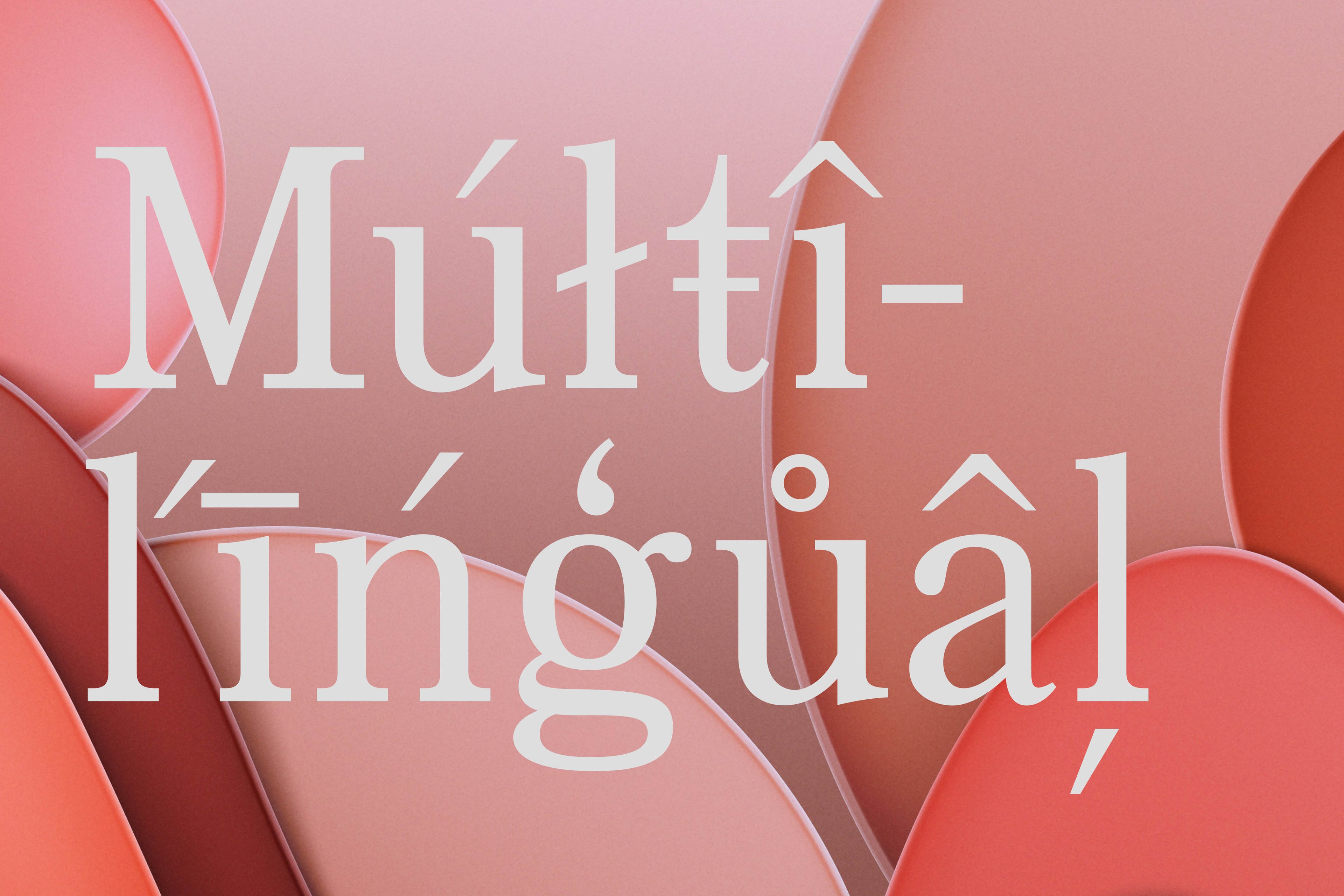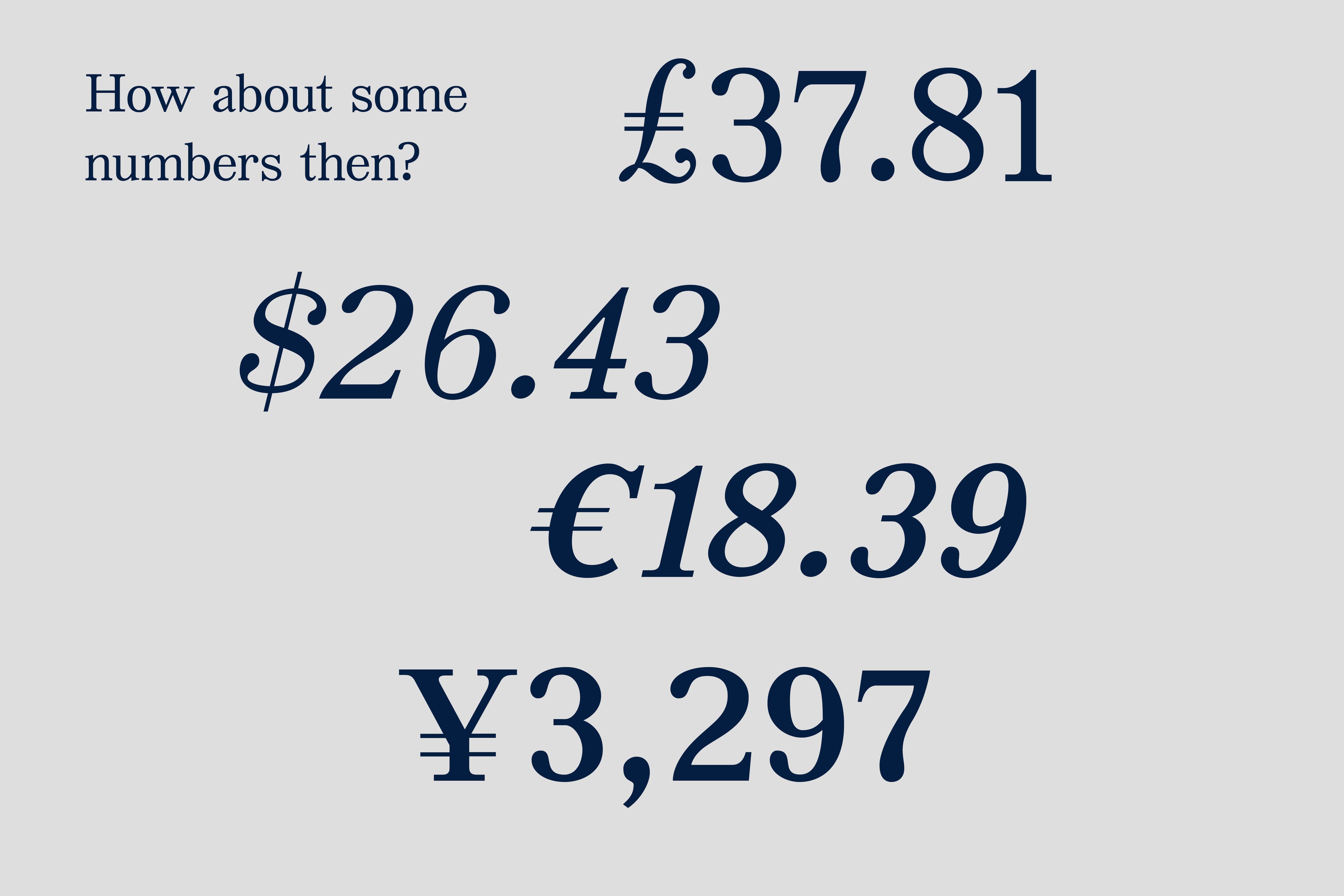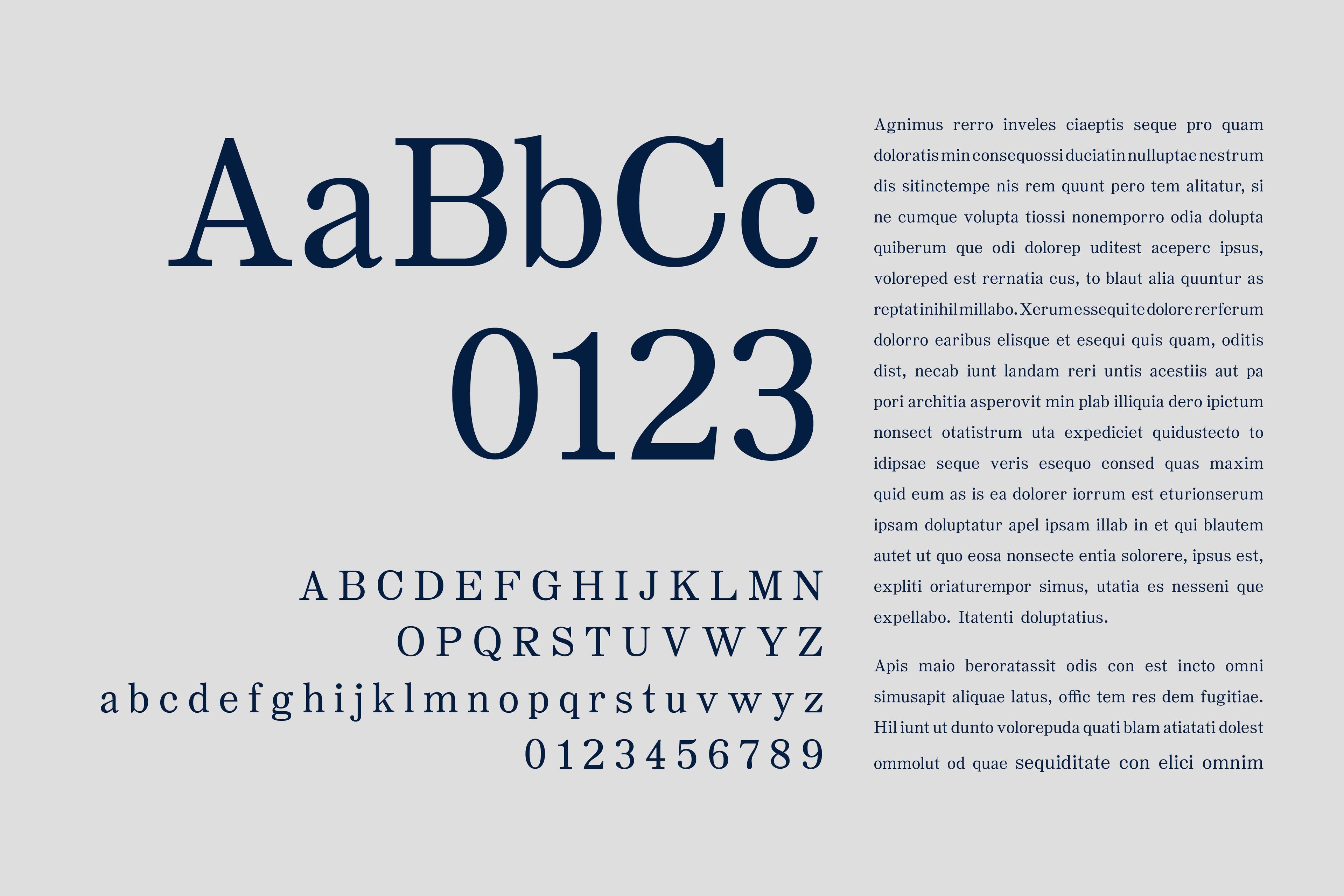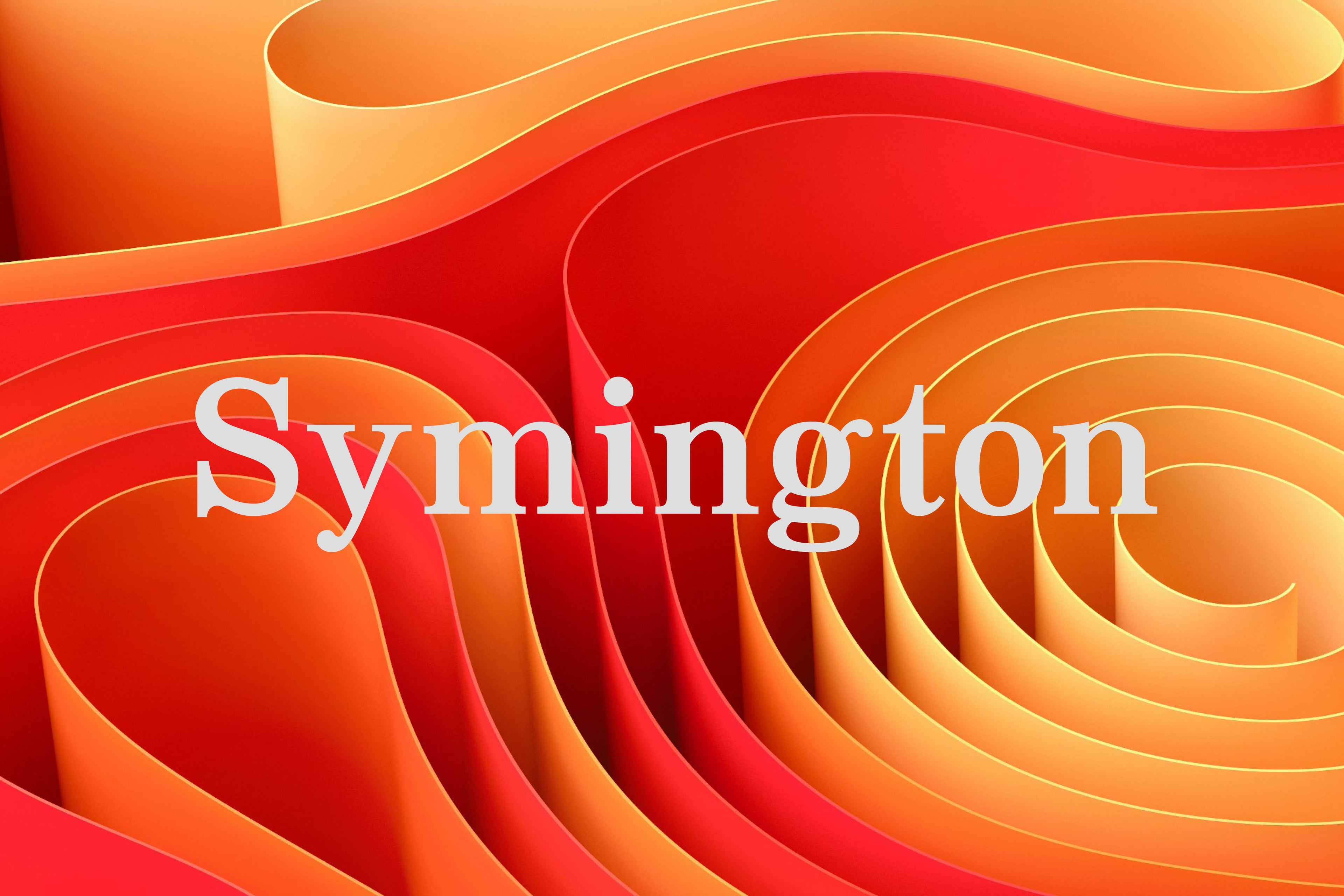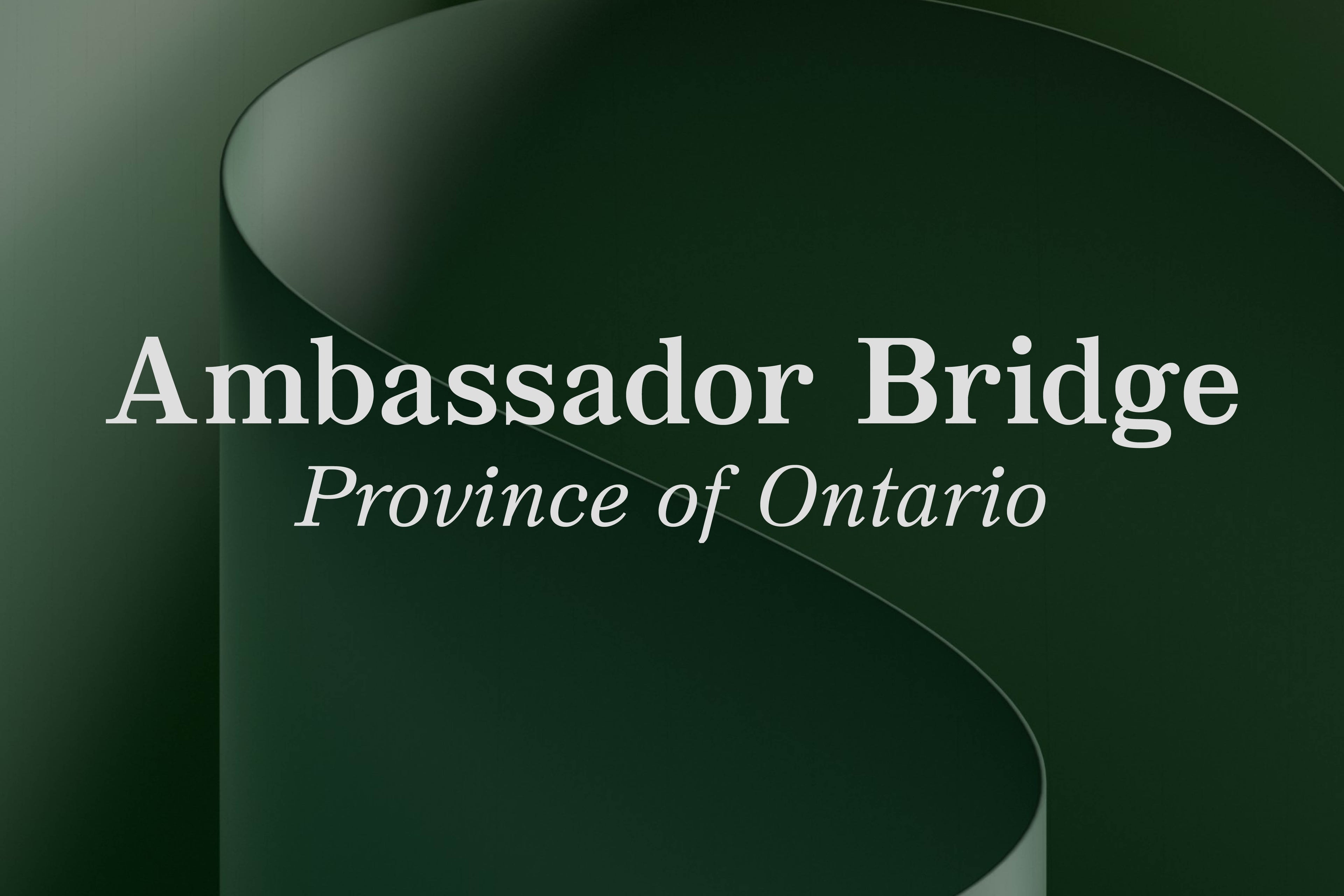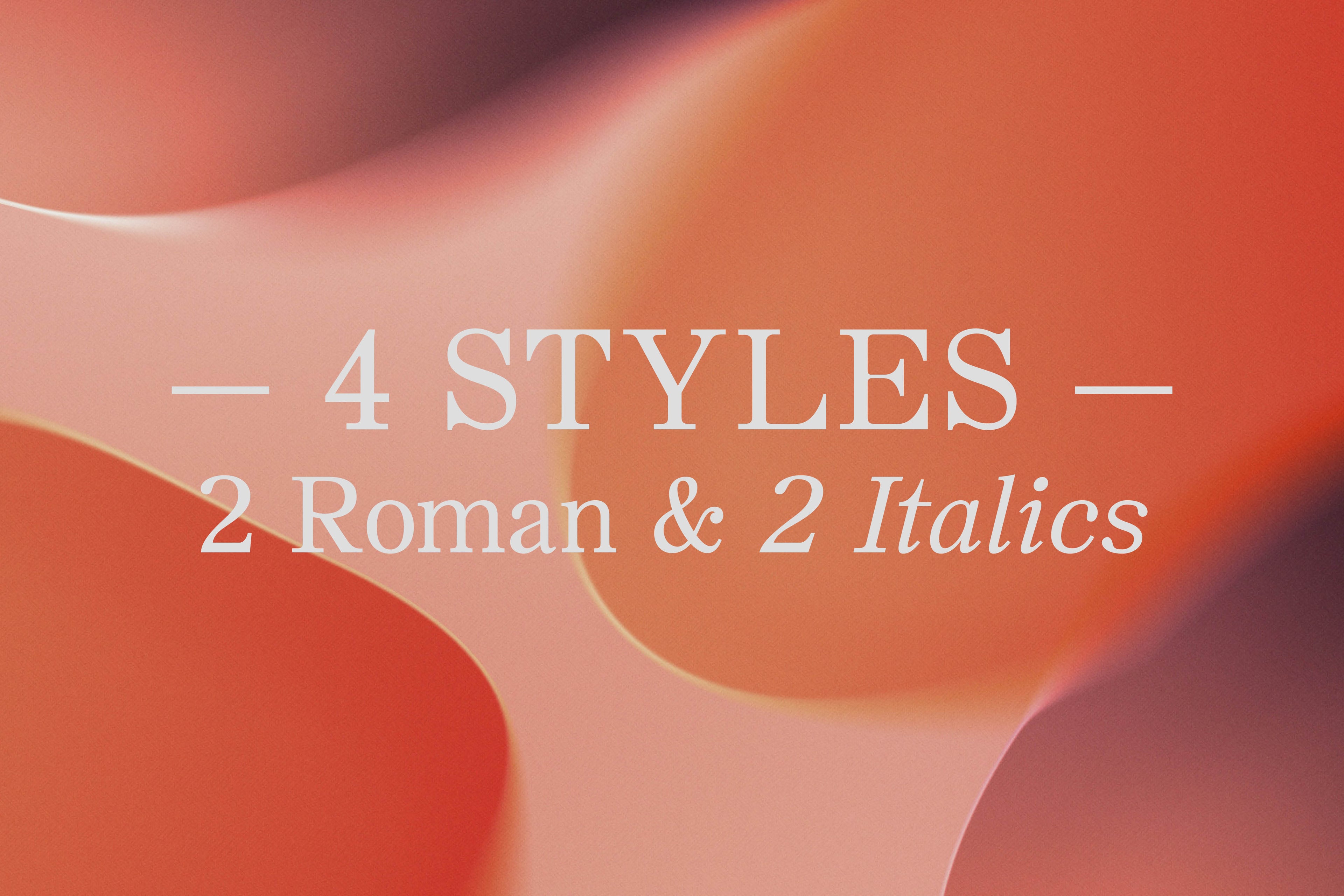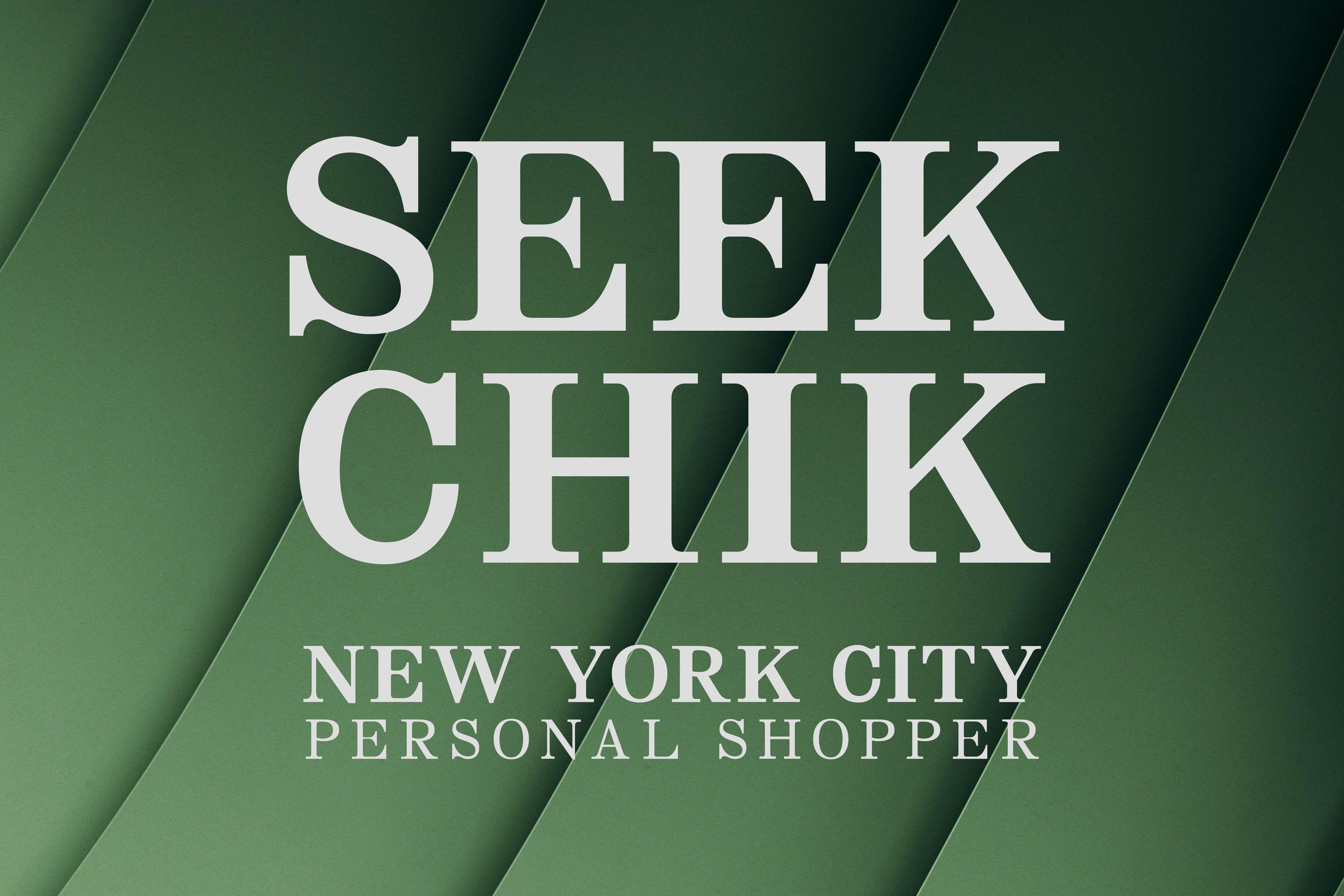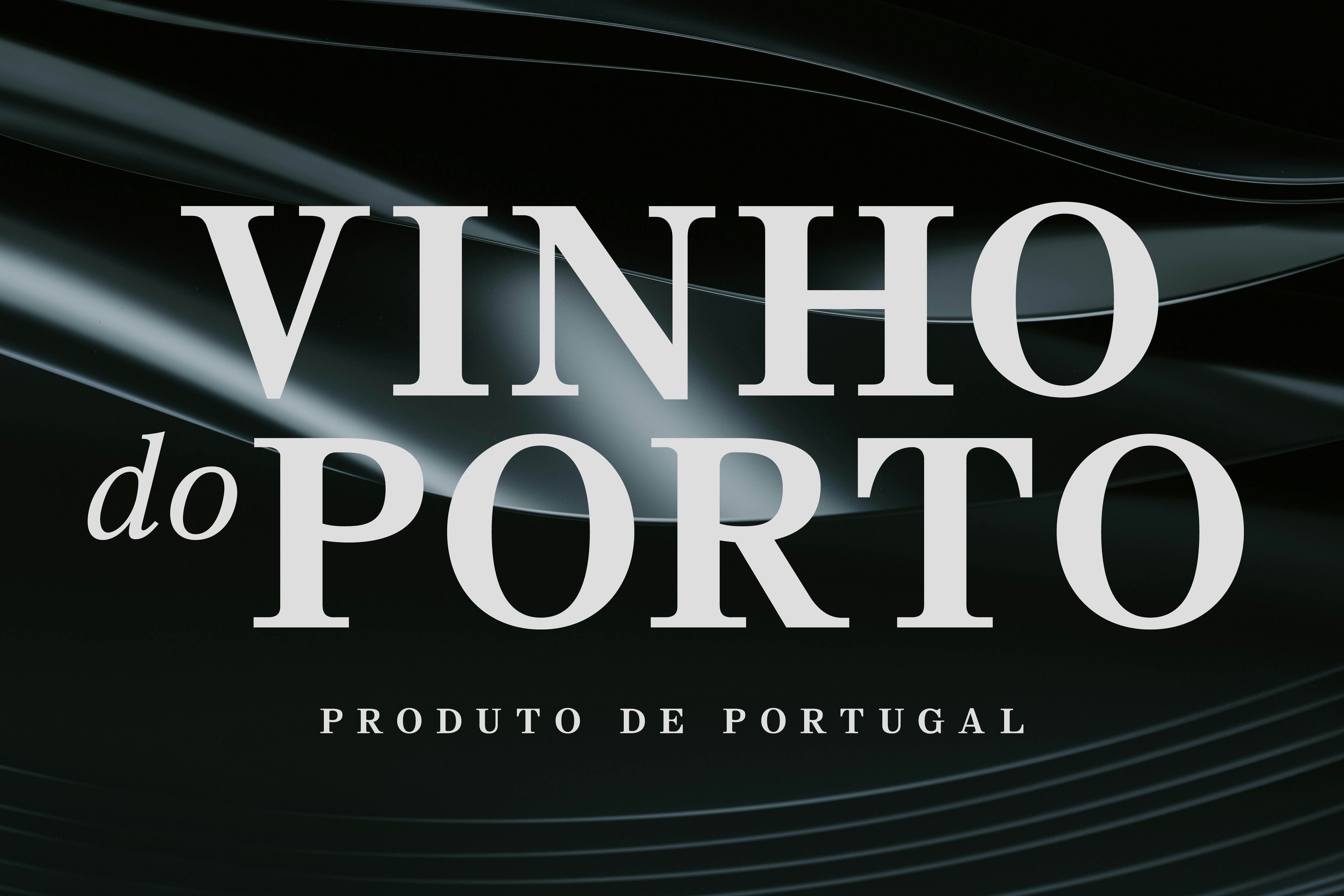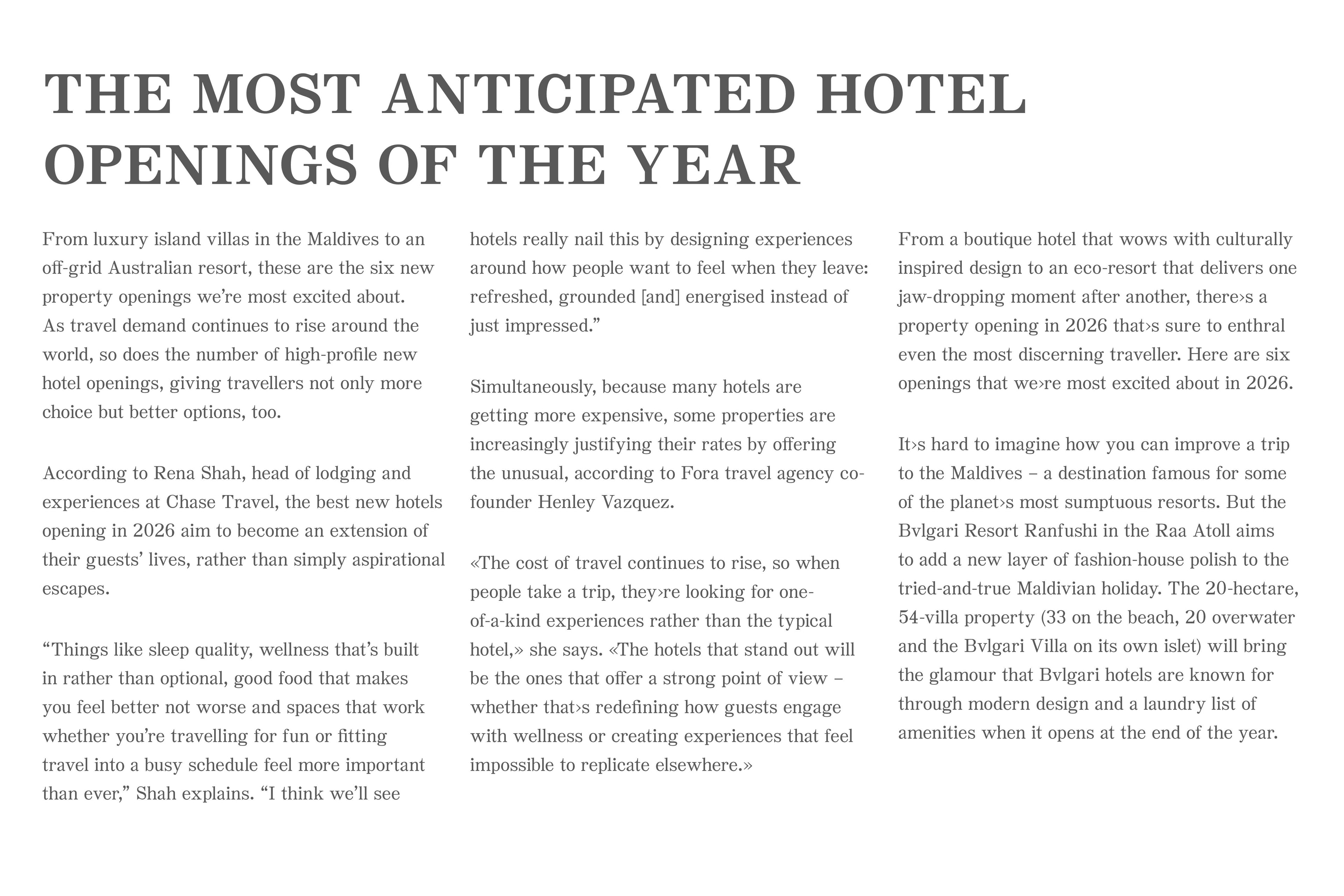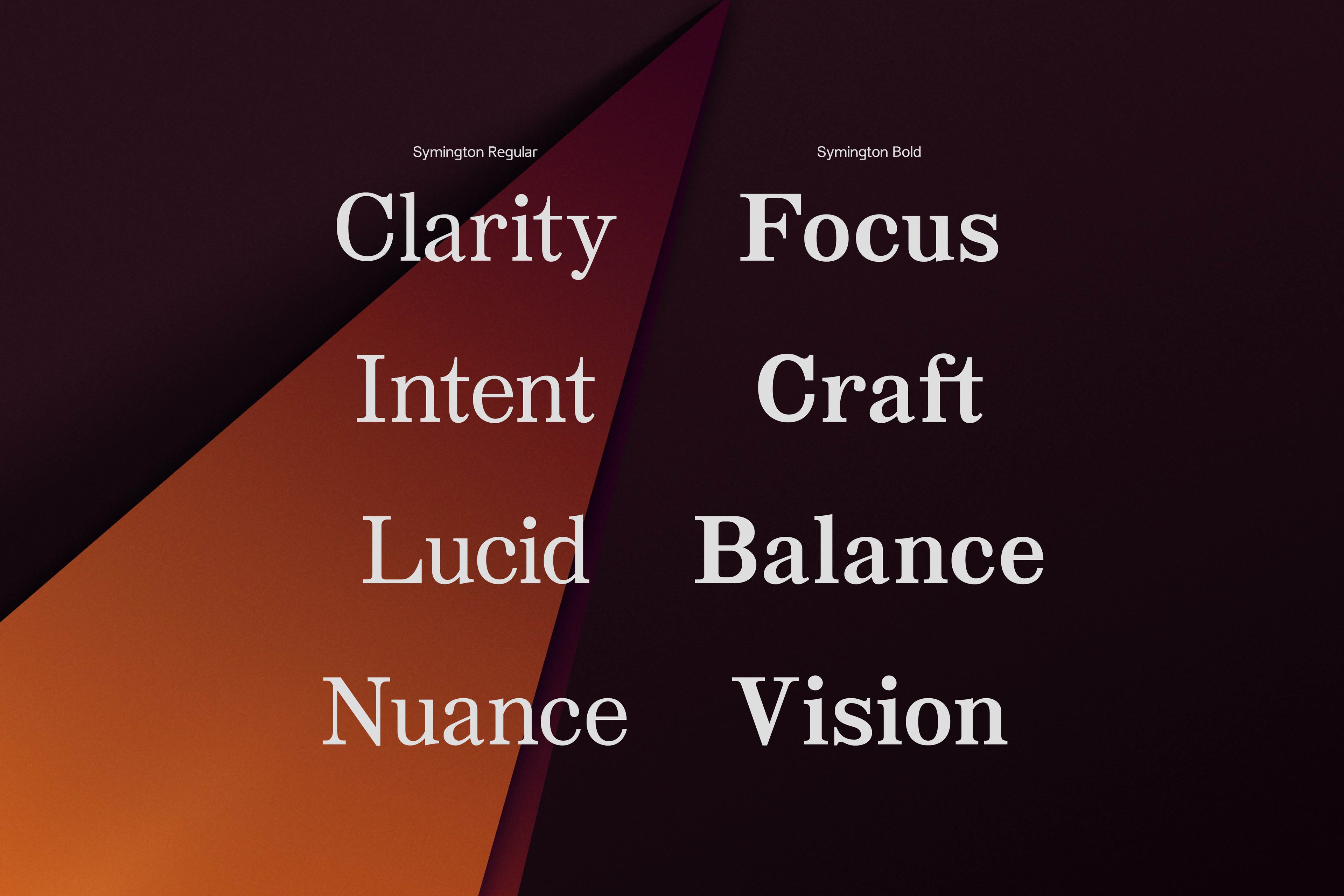
JT Symington
JT Symington was inspired by the classic serif typefaces of the 20th century. Its well defined serifs make it well suited to headlines as well as large chunks of body copy.